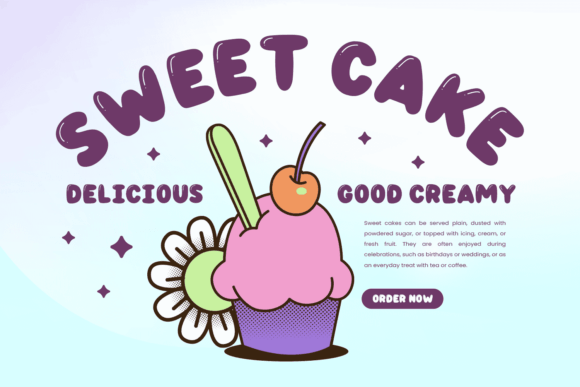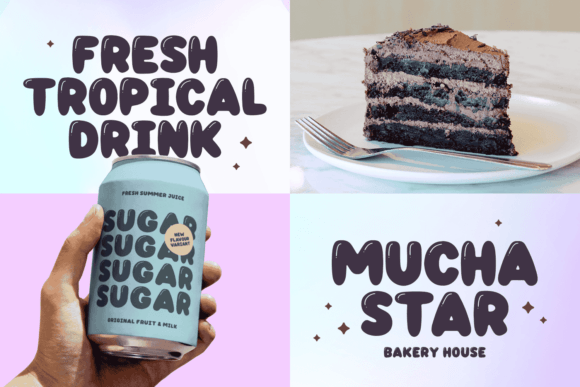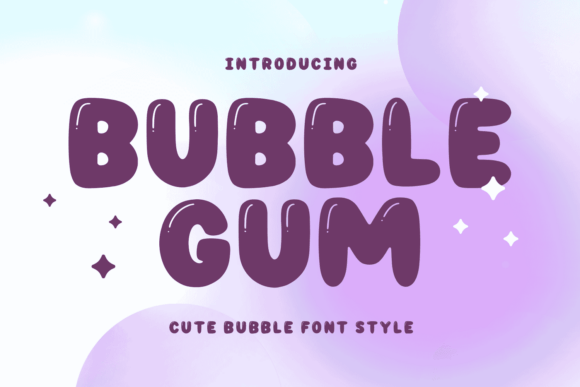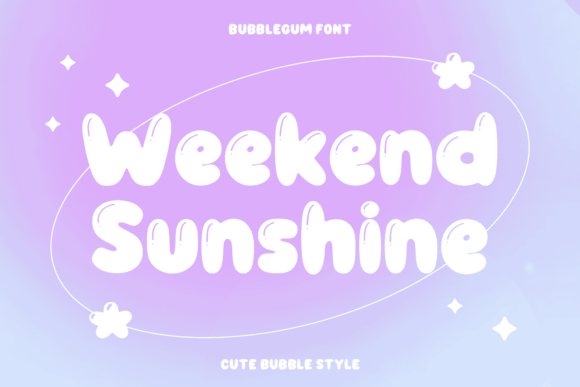
Bubblegum Font: A Cute Display Font for Playful Designs
About the Bubblegum Font
The Bubblegum Font offers a perfect balance of form and function for your design needs. Introducing Bubblegum, a fun and cute display font that adds a playful touch to every design! Perfectly crafted with bubbly, rounded letters, this font is ideal for creating a joyful atmosphere that will bring smiles to all ages. Whether you’re working on invitations, baby showers, or kids’ projects, Bubblegum is here to make your text pop with charm and sweetness.
Bubblegum’s playful character makes it perfect for headlines, short slogans, and playful branding elements, particularly for children’s products, sweet treats, or anything targeting a young, lighthearted audience. It excels in packaging design and eye-catching posters where its rounded forms create a friendly and approachable feel. However, its low x-height and playful forms make it unsuitable for body text or UI elements requiring high readability.
Pairing Bubblegum effectively requires a contrasting typeface to provide balance. A clean sans-serif like Open Sans or a classic serif such as Garamond would create visual harmony, grounding the playful energy of Bubblegum. For a more whimsical approach, a simple script font could add a touch of elegance without overwhelming the design.
Bubblegum’s overall personality is undeniably cheerful and friendly, conveying a sense of youthful energy and sweetness. Avoid pairing it with fonts that are overly heavy or geometric, as this would clash with its soft, rounded forms and undermine its inherent charm.
Bubblegum Font Usage Examples
Bubblegum Font Example